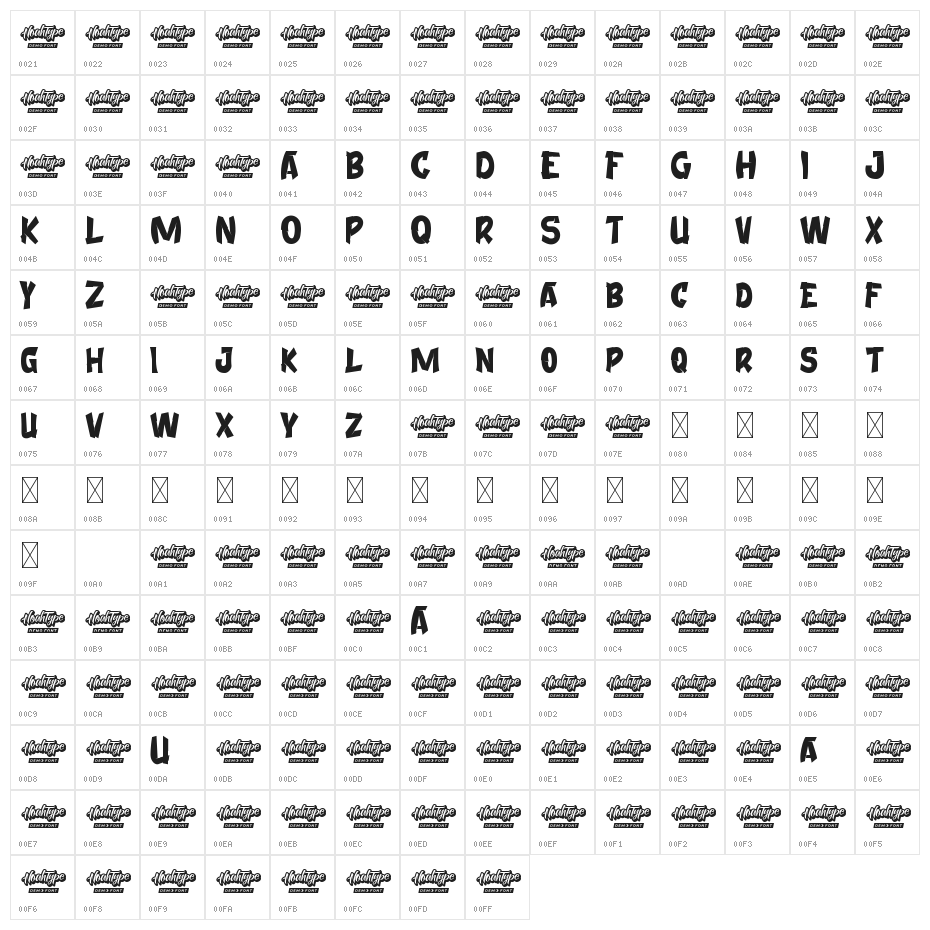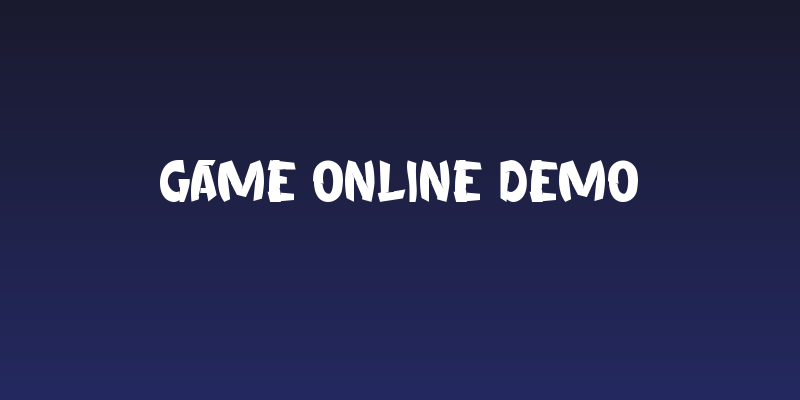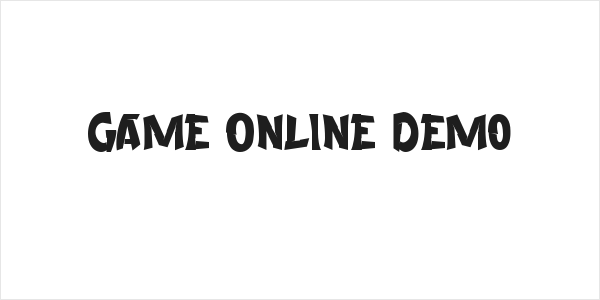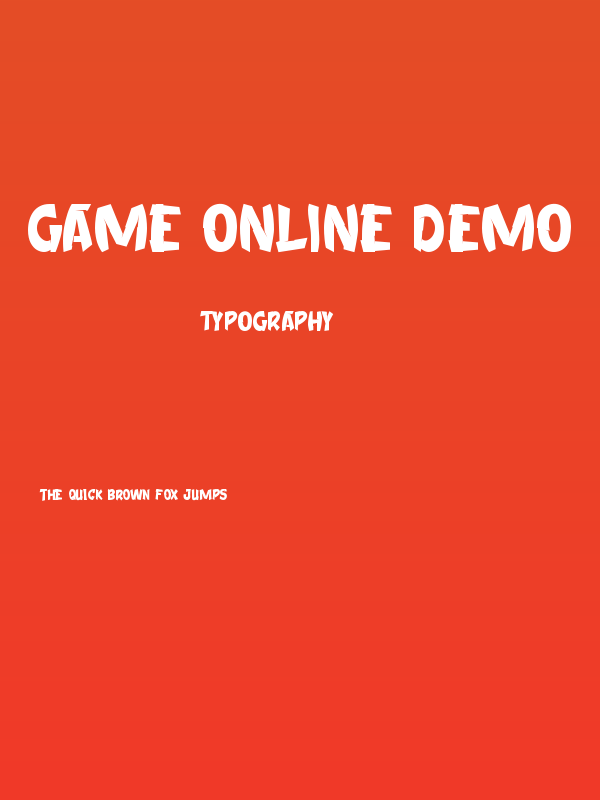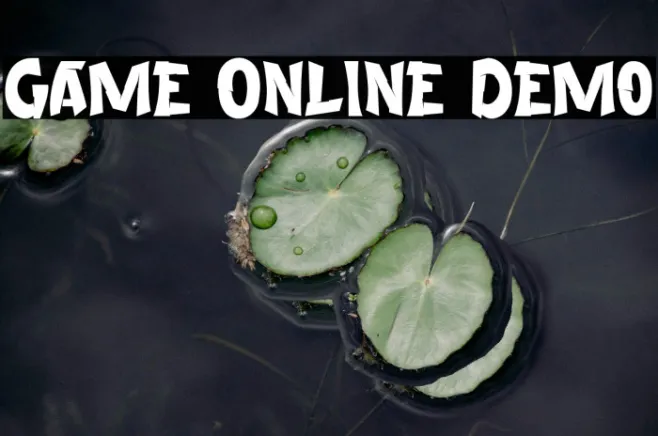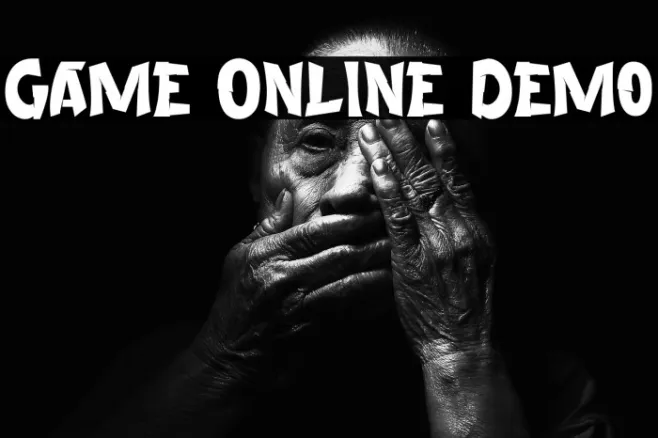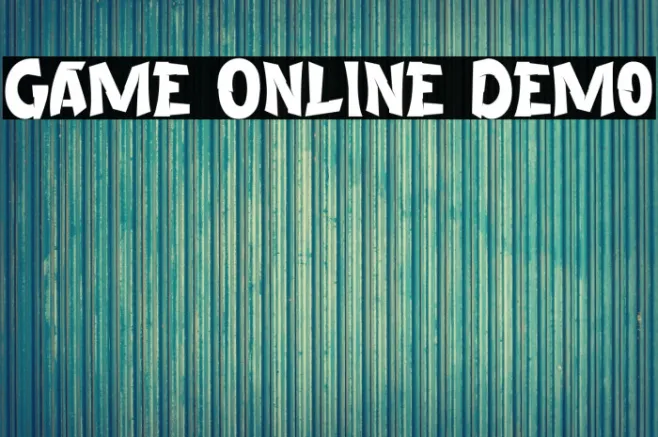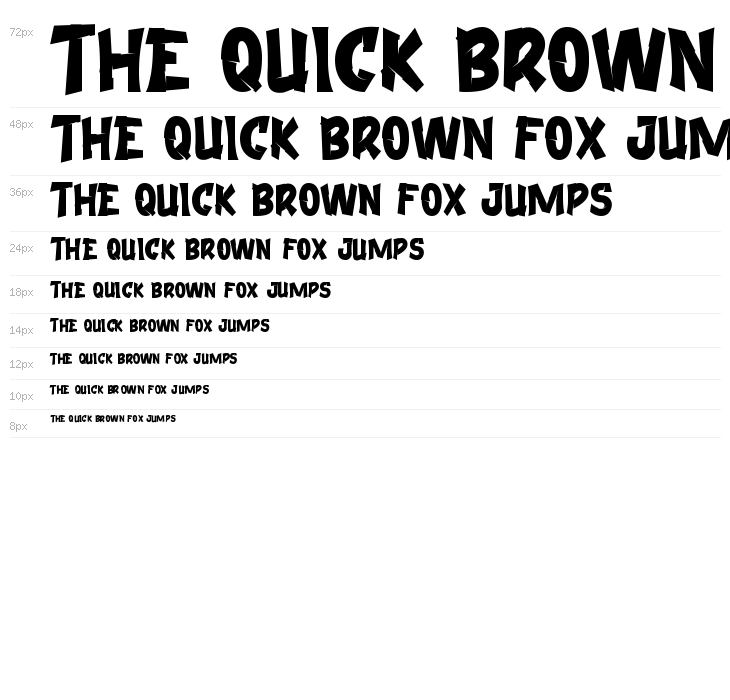
Game Online Demo Font
Game Online Demo Description
This font features a bold and dynamic style with a playful, energetic vibe. The characters are designed with a slightly irregular, hand-drawn appearance, giving them a unique and lively look. The strokes are thick and bold, with a slight slant that adds to the sense of movement and excitement. The overall design is modern and eye-catching, making it ideal for projects that require a strong visual impact. The font is well-suited for use in headlines, posters, and other display purposes where a bold statement is needed.
| Proposed Projects | Ideal for video game titles, posters, event flyers, and branding materials that require a bold and energetic look. |